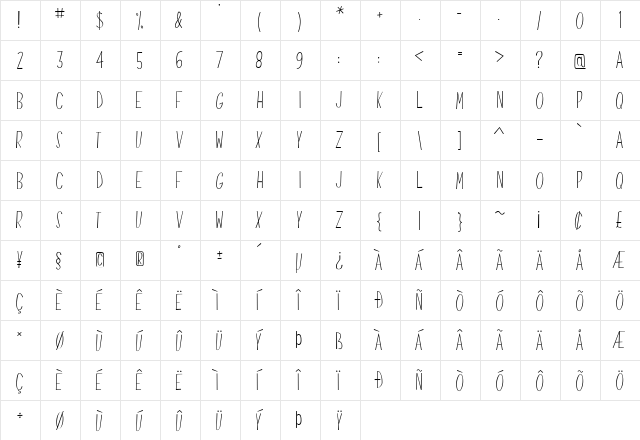
Swallow Falls Lite Regular
Design Context for Swallow Falls Lite Typeface
Swallow Falls Lite is a composed and adaptable typeface that performs quietly and consistently across a wide range of design contexts.